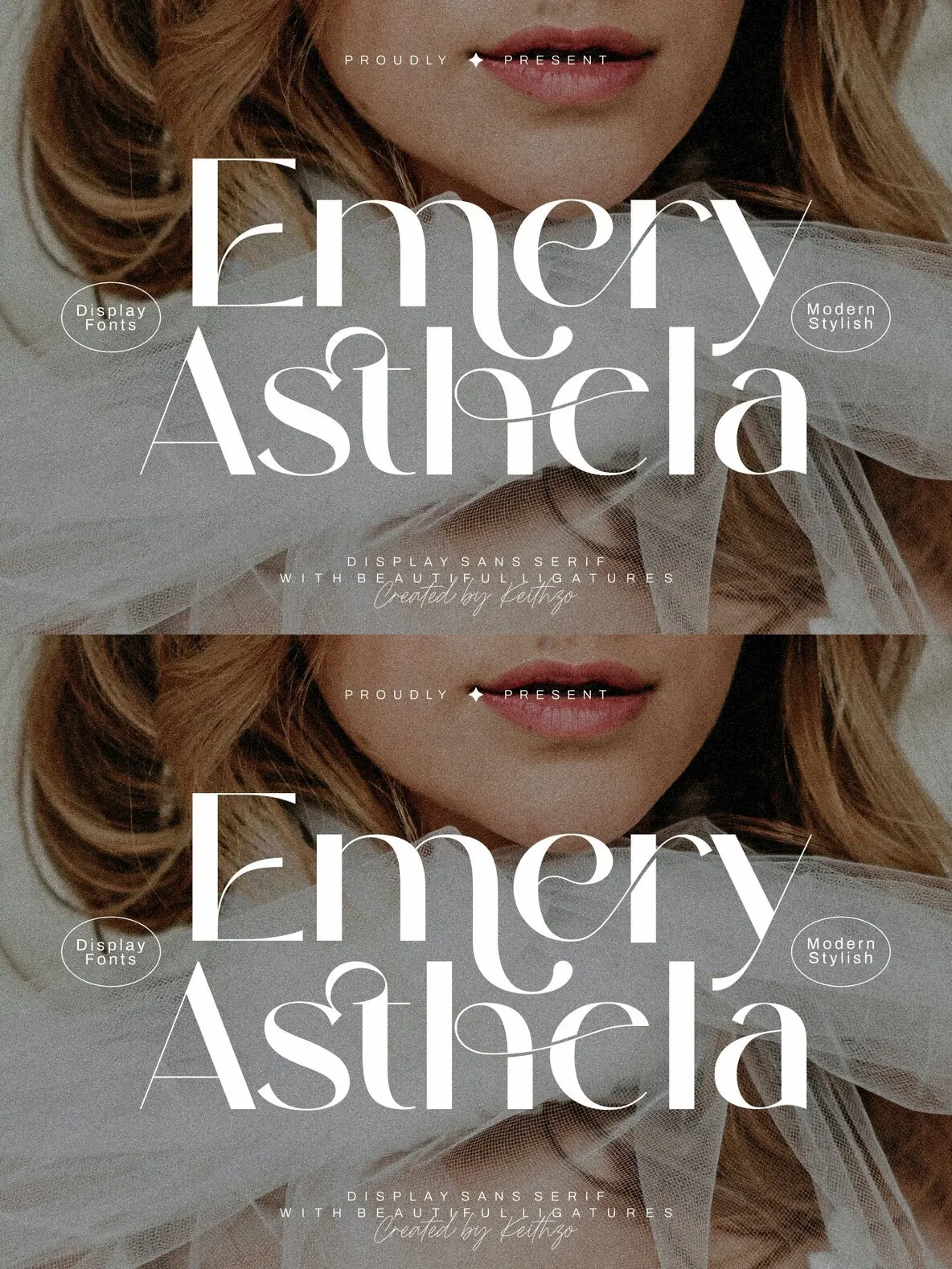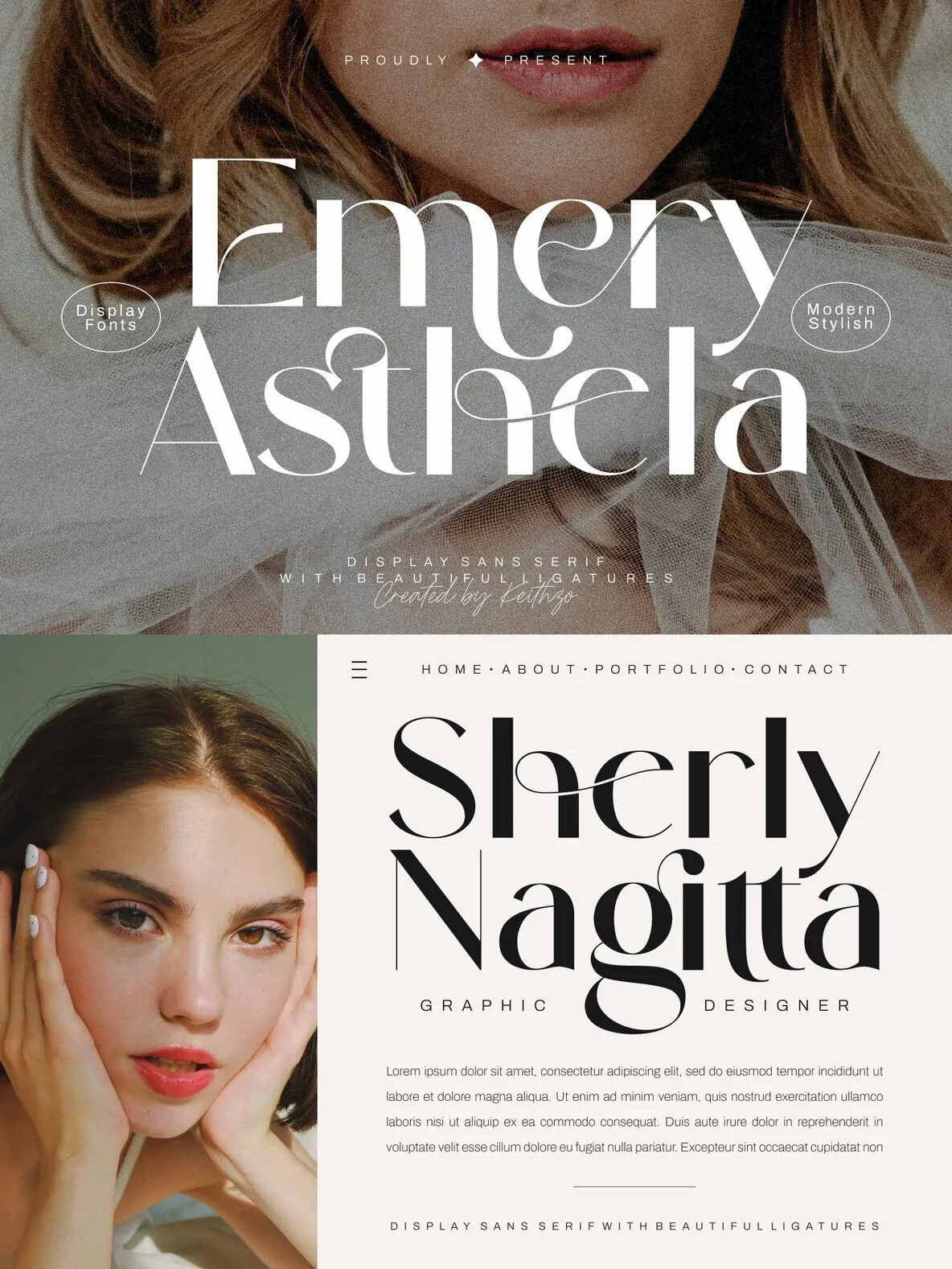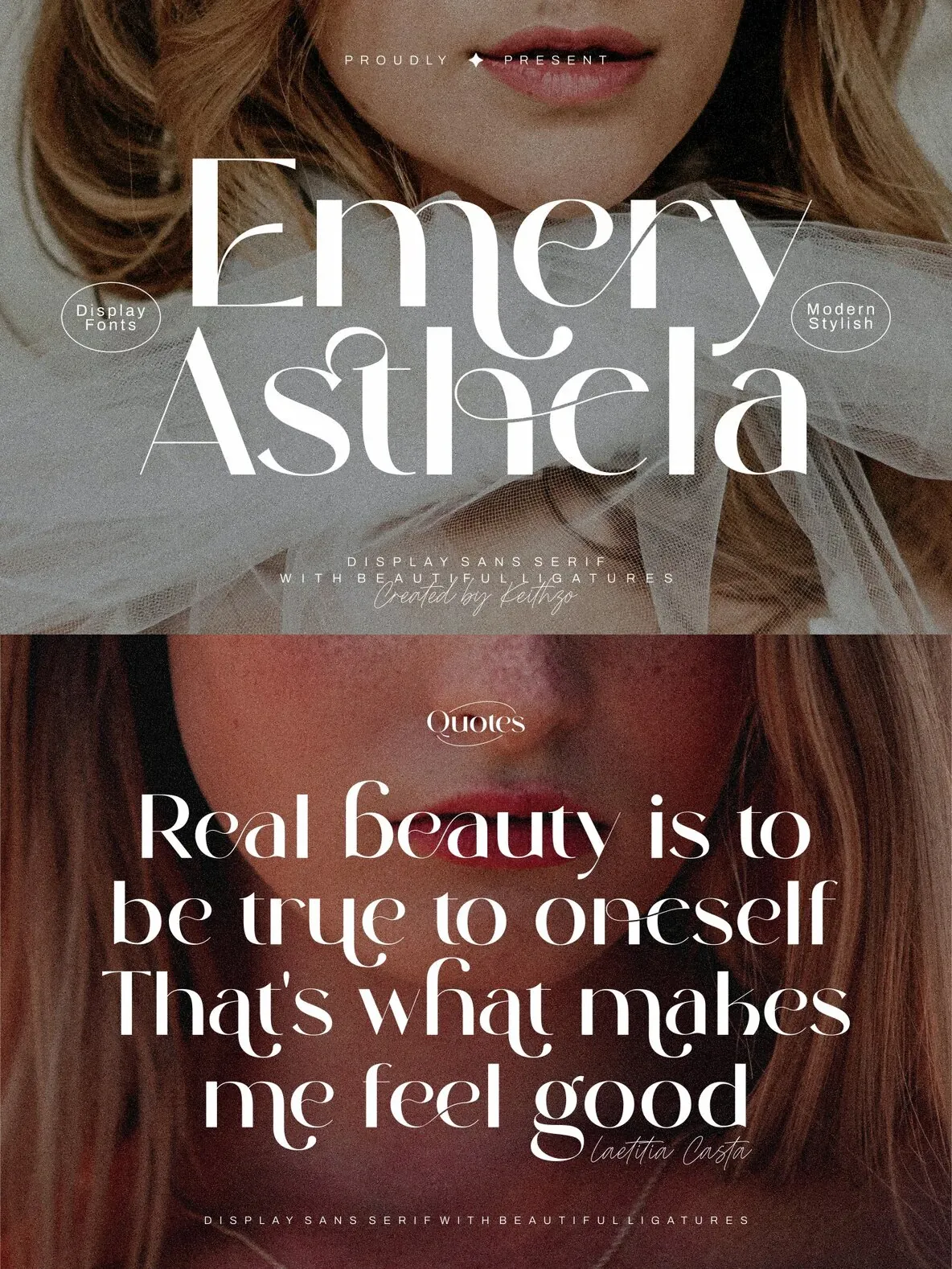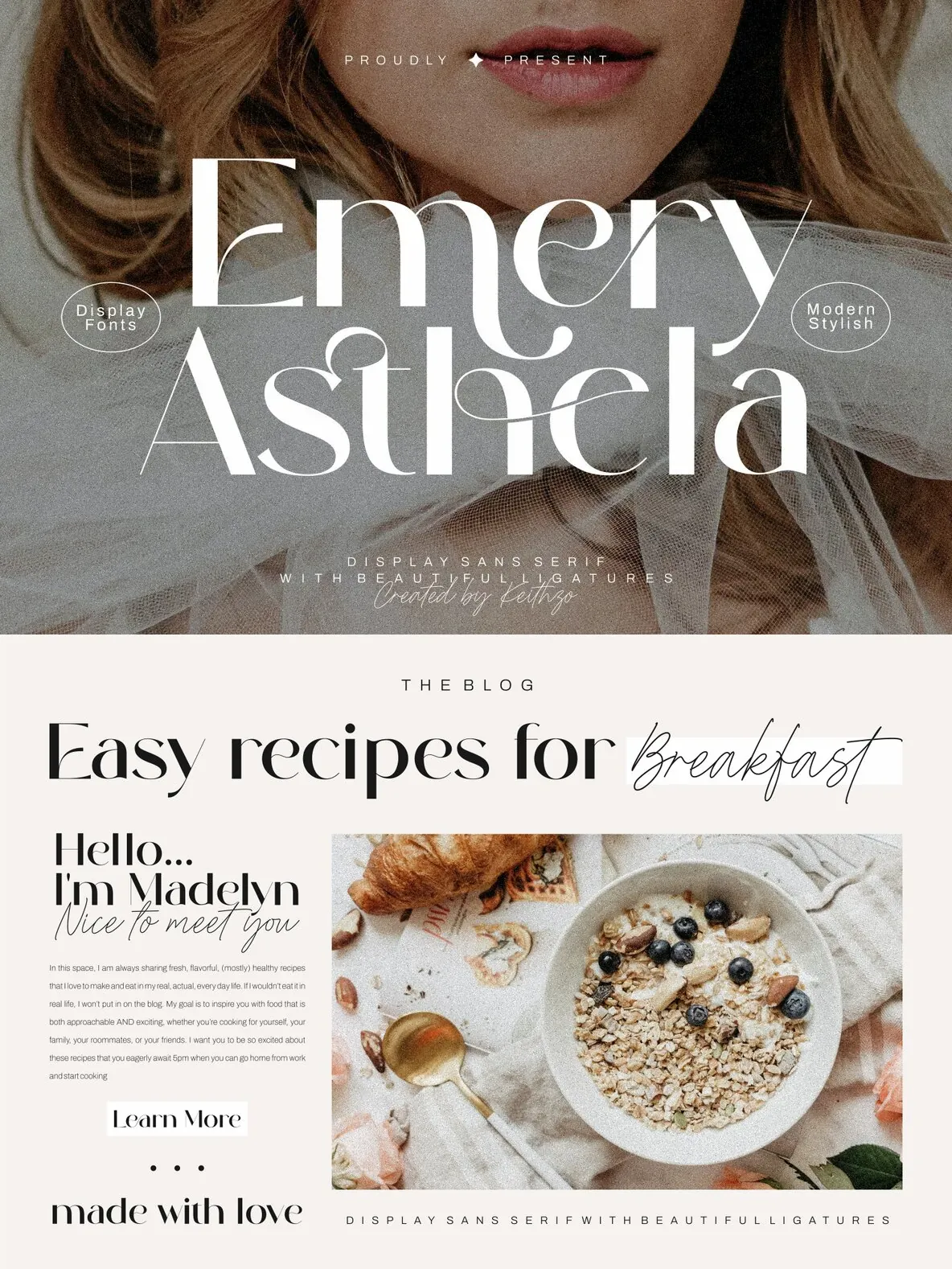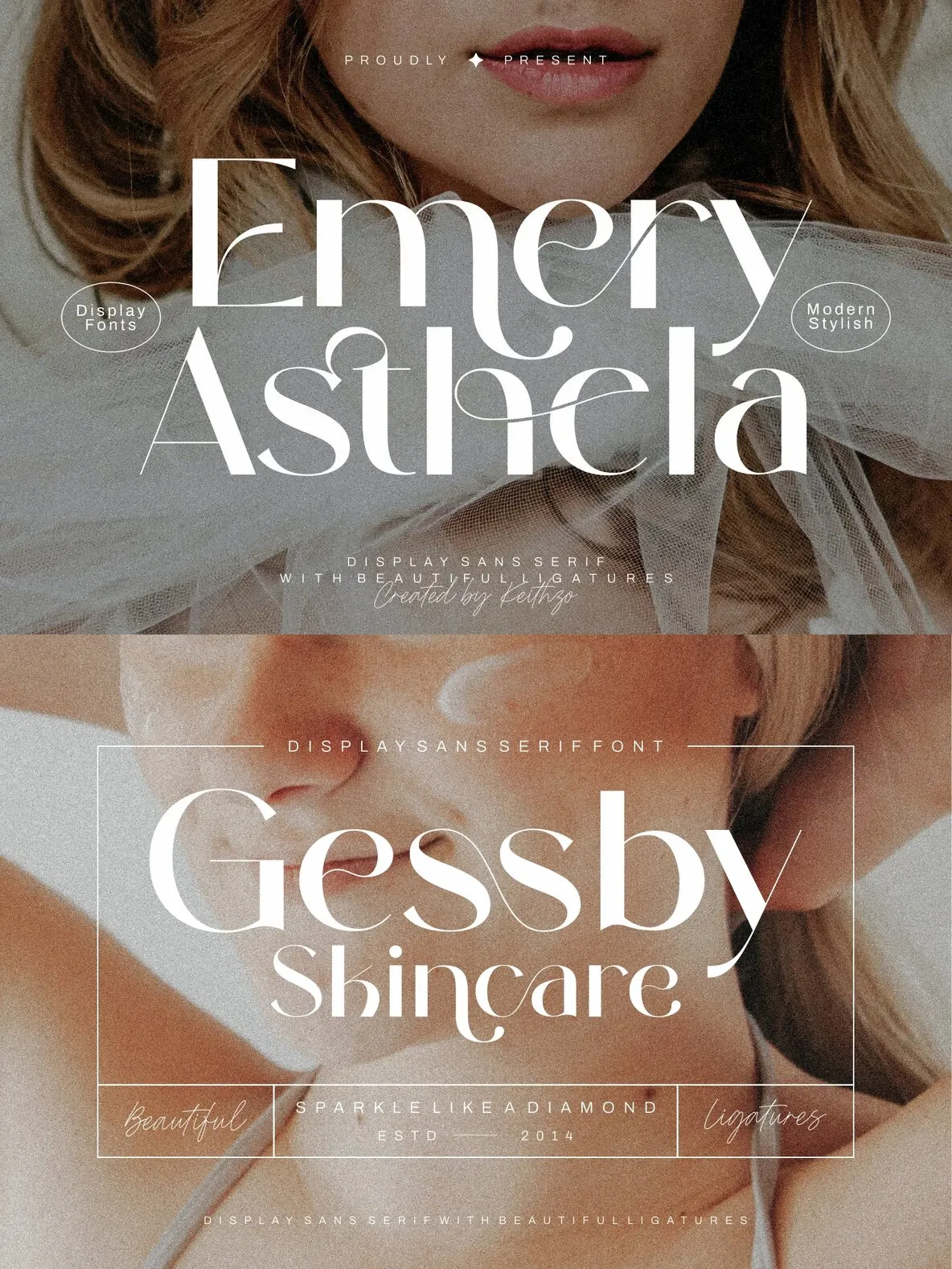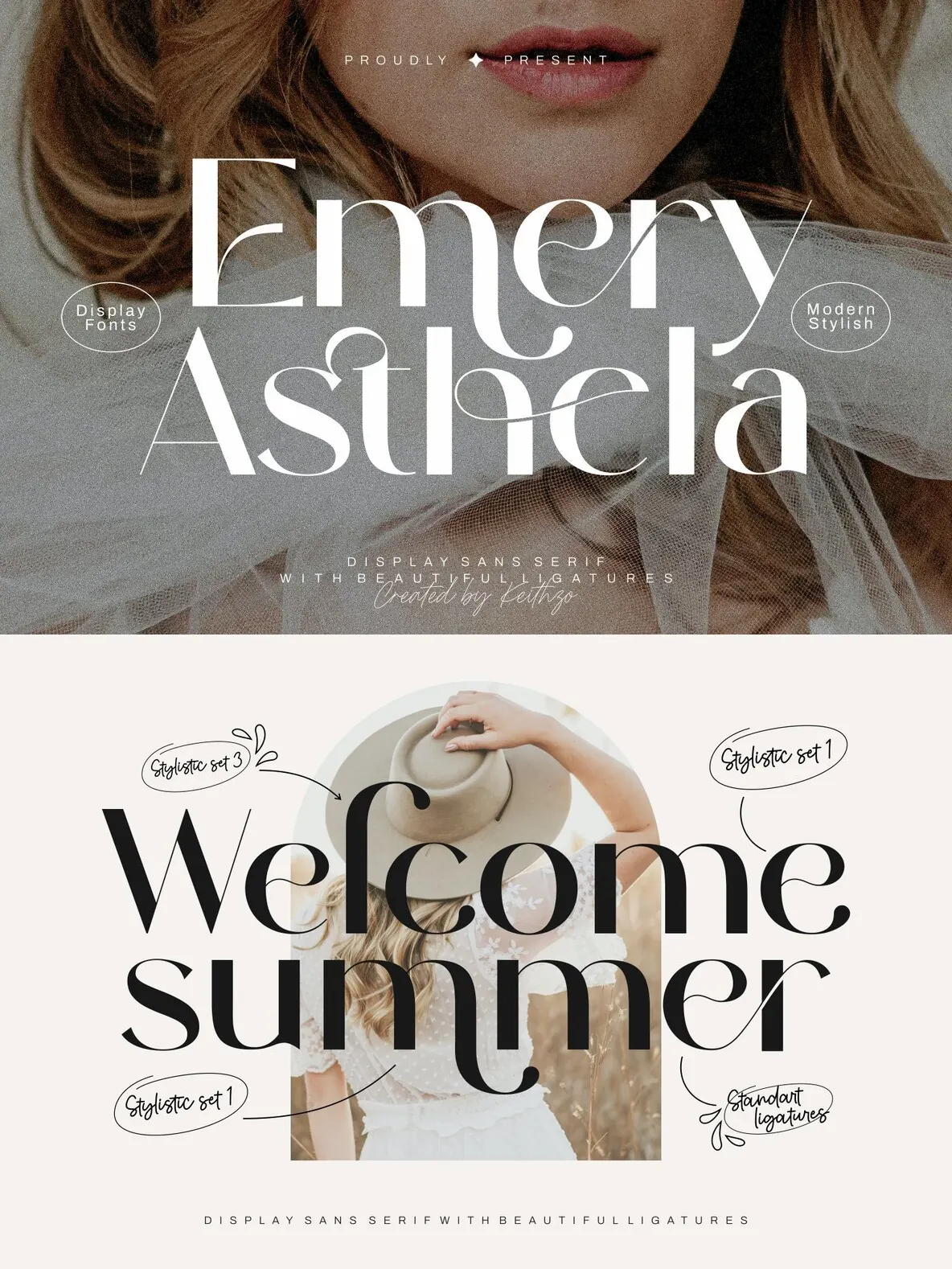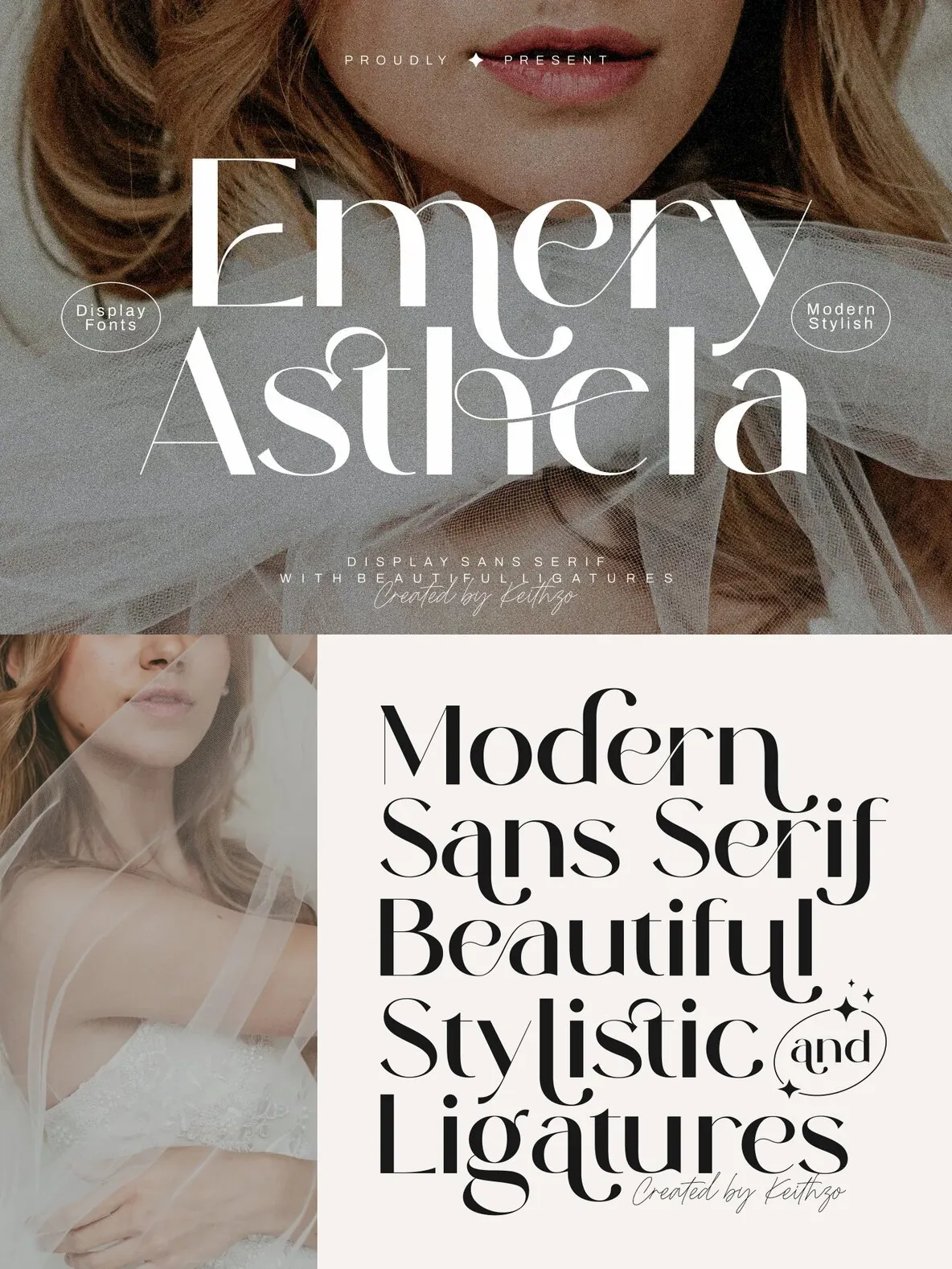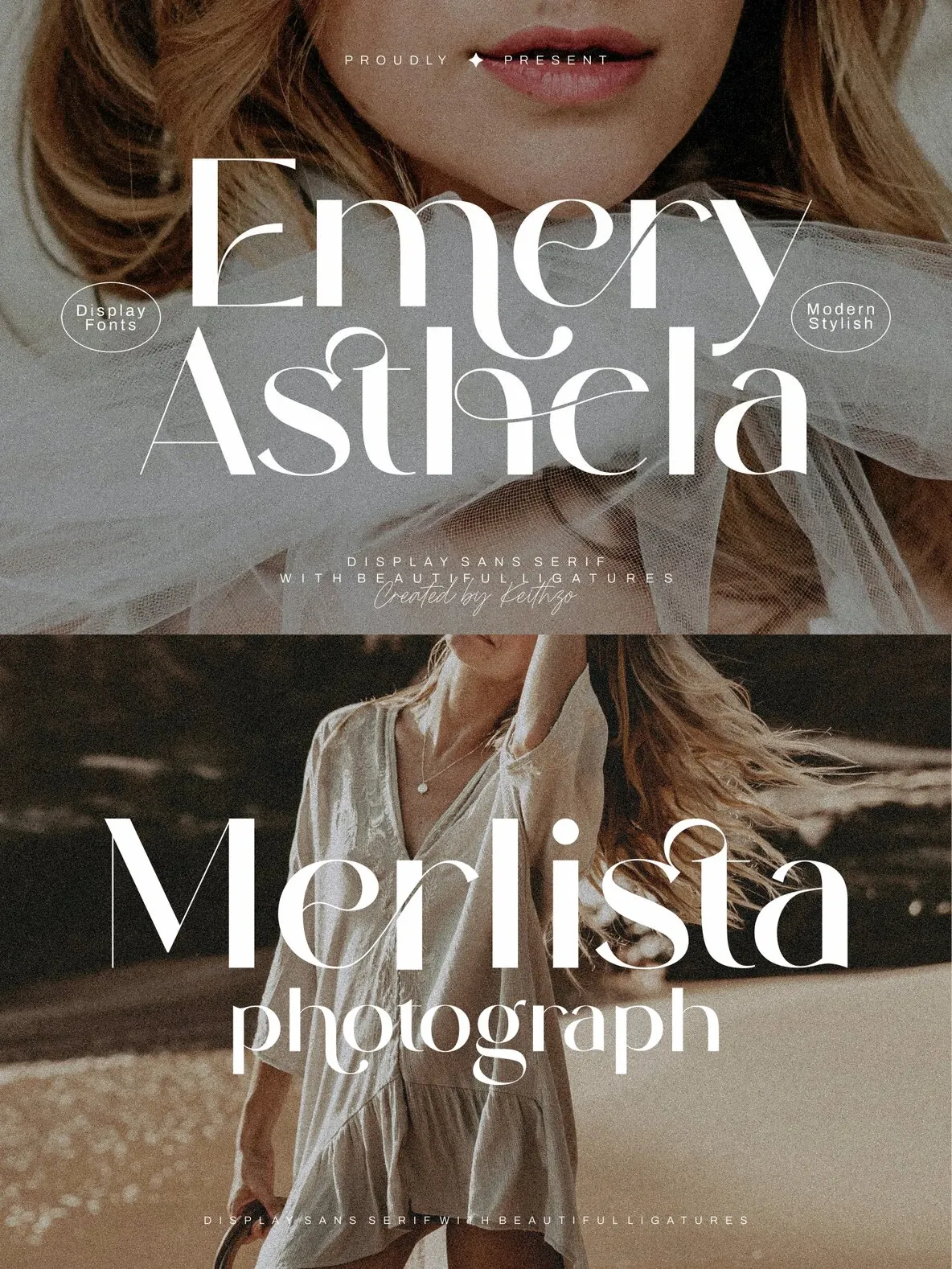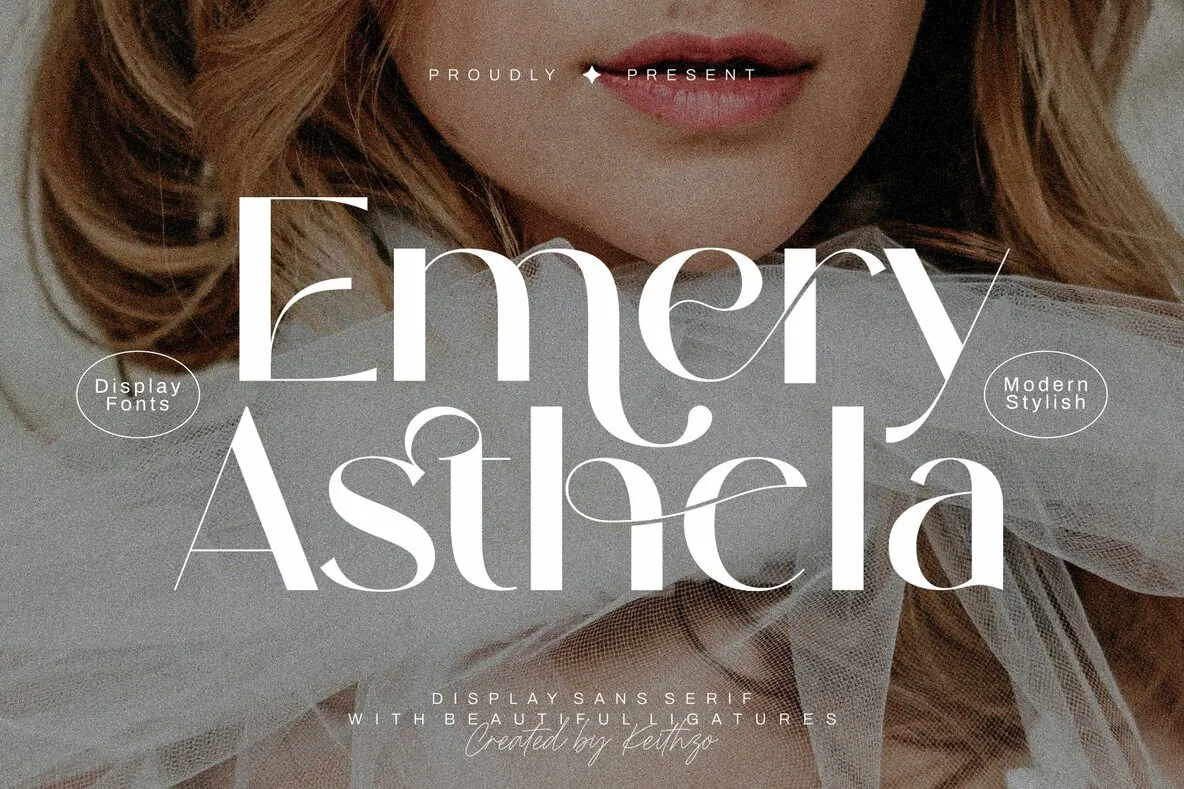
Emery Asthela Font
Emery Asthela: Exquisite Script Font with Timeless Elegance
Emery Asthela is a script font that exudes sophistication and charm, featuring slender and flowing strokes that gracefully dance across the page. This font captures the essence of elegance and style, with each letter meticulously crafted to embody timeless beauty. It’s the perfect choice for any project requiring a touch of refined elegance.